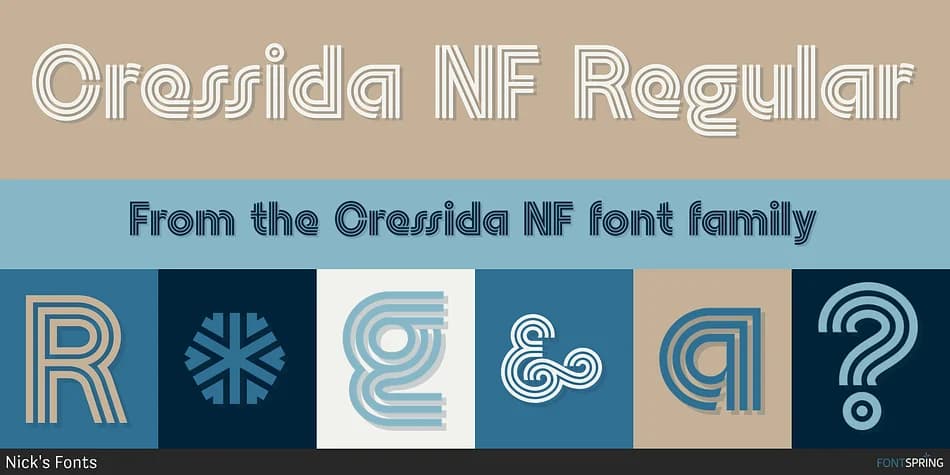
Cressida NF is a decorative font designed by Nick's Fonts. Cressida NF is a premium font β see the listing for pricing and license terms. Decorative fonts like Cressida NF work best for logos, posters, packaging, and standout headlines.
Cressida NF Font is a decorative font that shines as a display or heading face. Pair it with a clean sans-serif or serif font for body text β the contrast creates a clear hierarchy while the two styles stay balanced and easy to read.
Cressida NF Font
by Nick's Fonts
Cressida NF Font is a decorative typeface by Nick's Fonts, ideal for logos, invitations, branding, and creative projects.